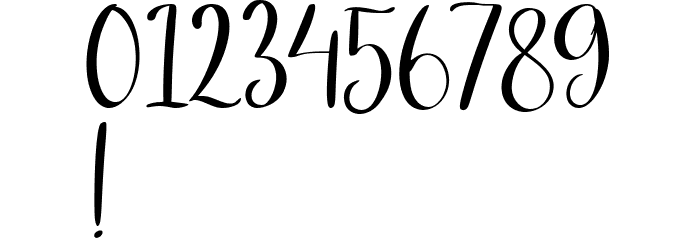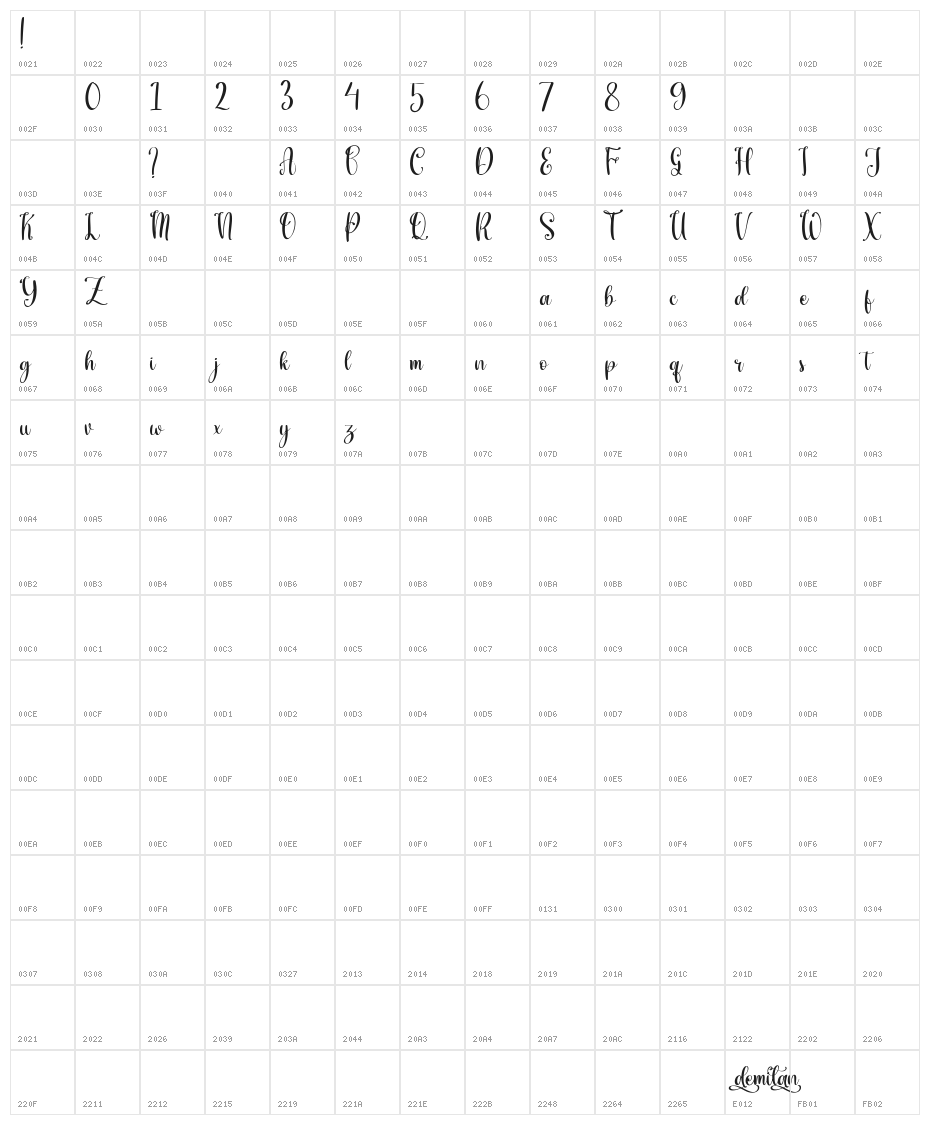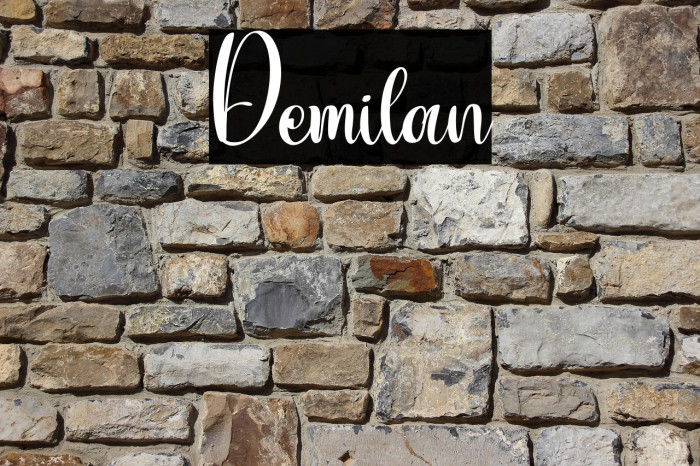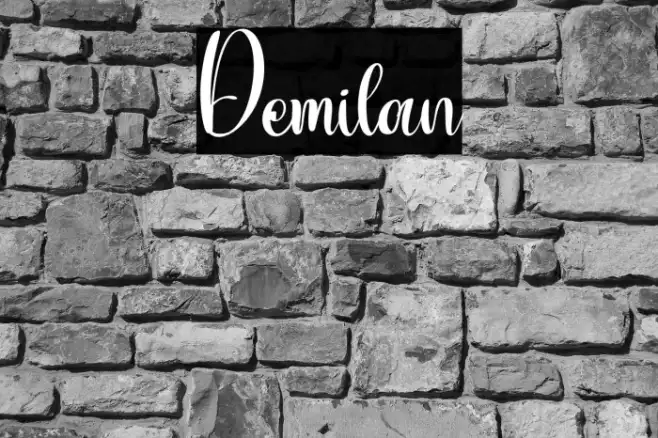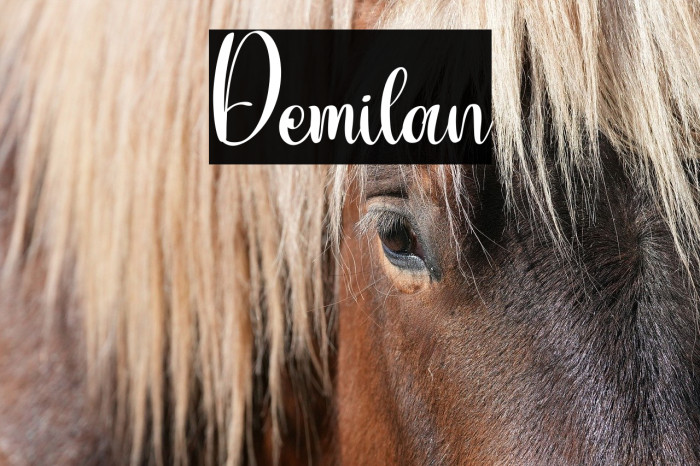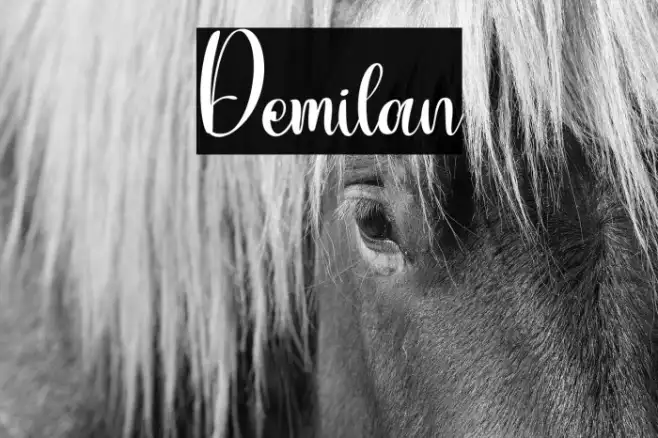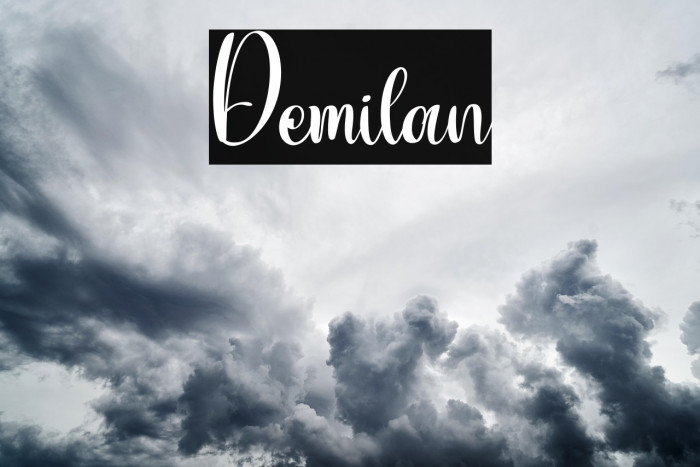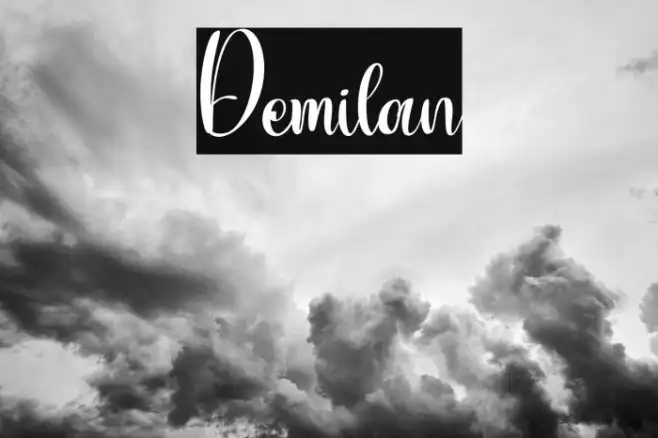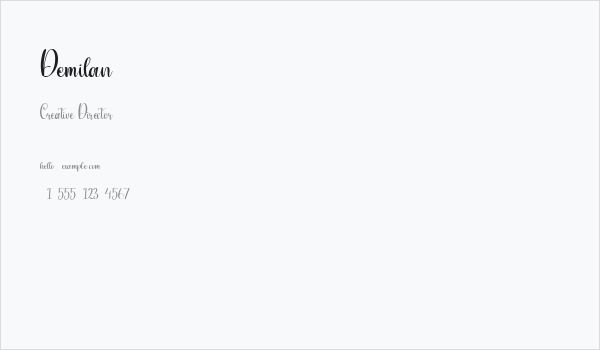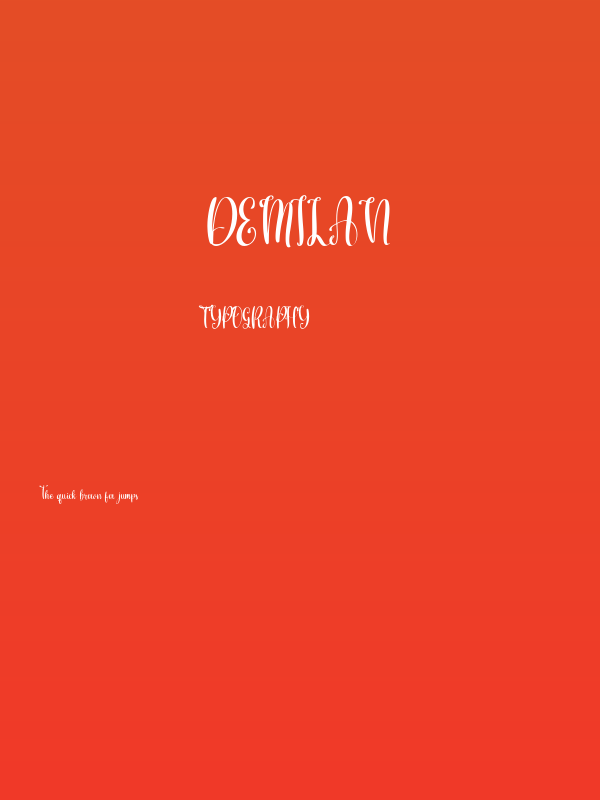
Demilan Font
Demilan Description
This font showcases a whimsical and elegant script style, characterized by its flowing, cursive letters with intricate swirls and loops. The uppercase letters are particularly ornate, with exaggerated flourishes that give a sense of movement and grace. The lowercase letters maintain a consistent style, offering a harmonious blend of readability and decorative flair. The numerals are bold and slightly more structured, providing a nice contrast to the fluidity of the letters. This font is ideal for projects that require a touch of sophistication and creativity, such as invitations, branding, and artistic designs.
| Use Case | Logos, Invitations, Artistic designs |
| Proposed Projects | Ideal for wedding invitations, branding, artistic designs, and decorative projects. |